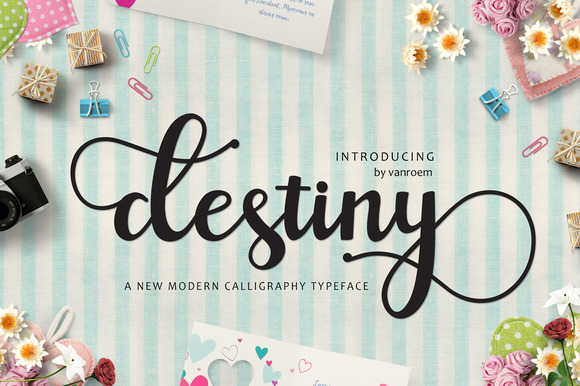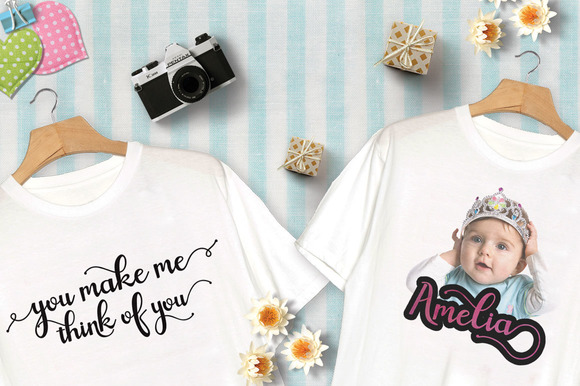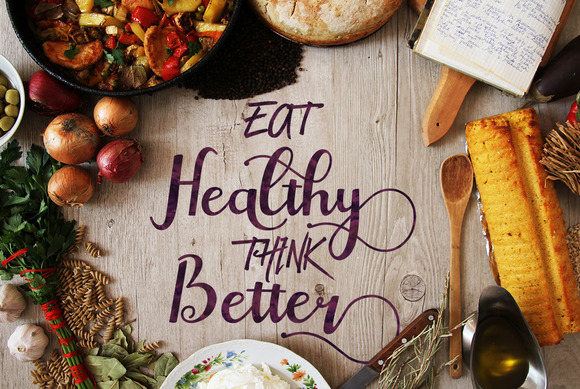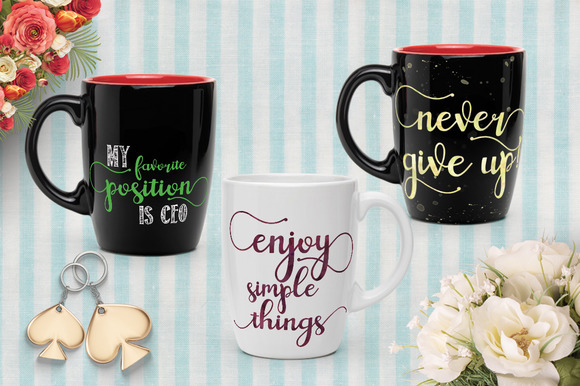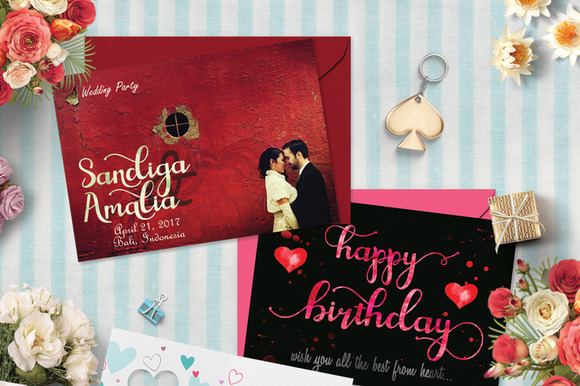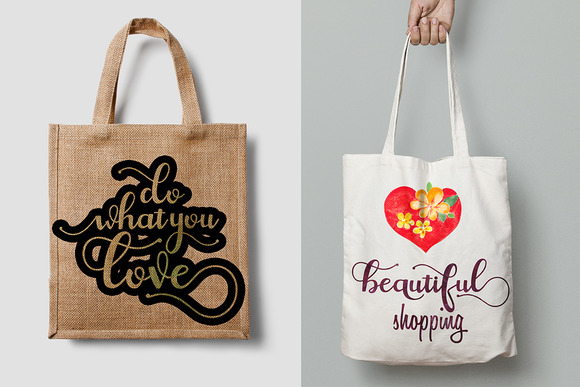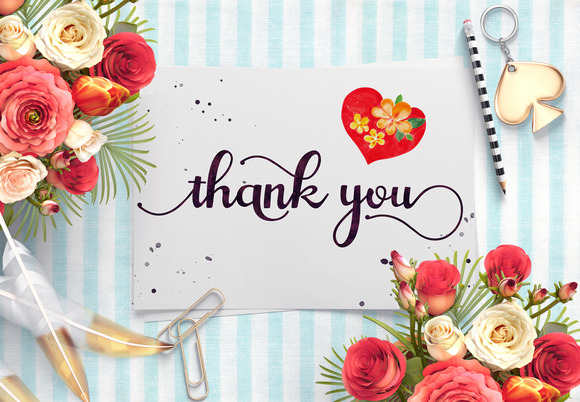
Destiny Font
About Destiny Font
Destiny is a stunning font with a modern twist on traditional calligraphy.
The Destiny script is packed with 390 glyphs and offers tons of alternate characters. This allows you to create unique designs every time you use this font.